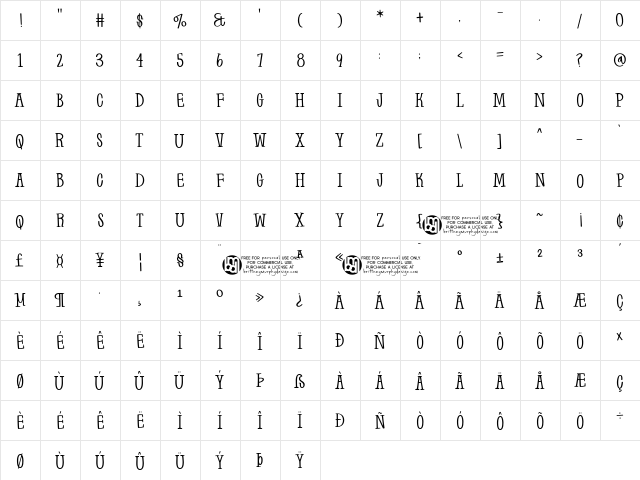
Farm to Market Bold Regular
Design Context for Farm to Market Bold Typeface
Farm to Market Bold takes a measured approach to typography — its balanced proportions and neutral character make it a reliable workhorse for both digital and print work. The heavy weight commands attention and anchors typographic hierarchies.